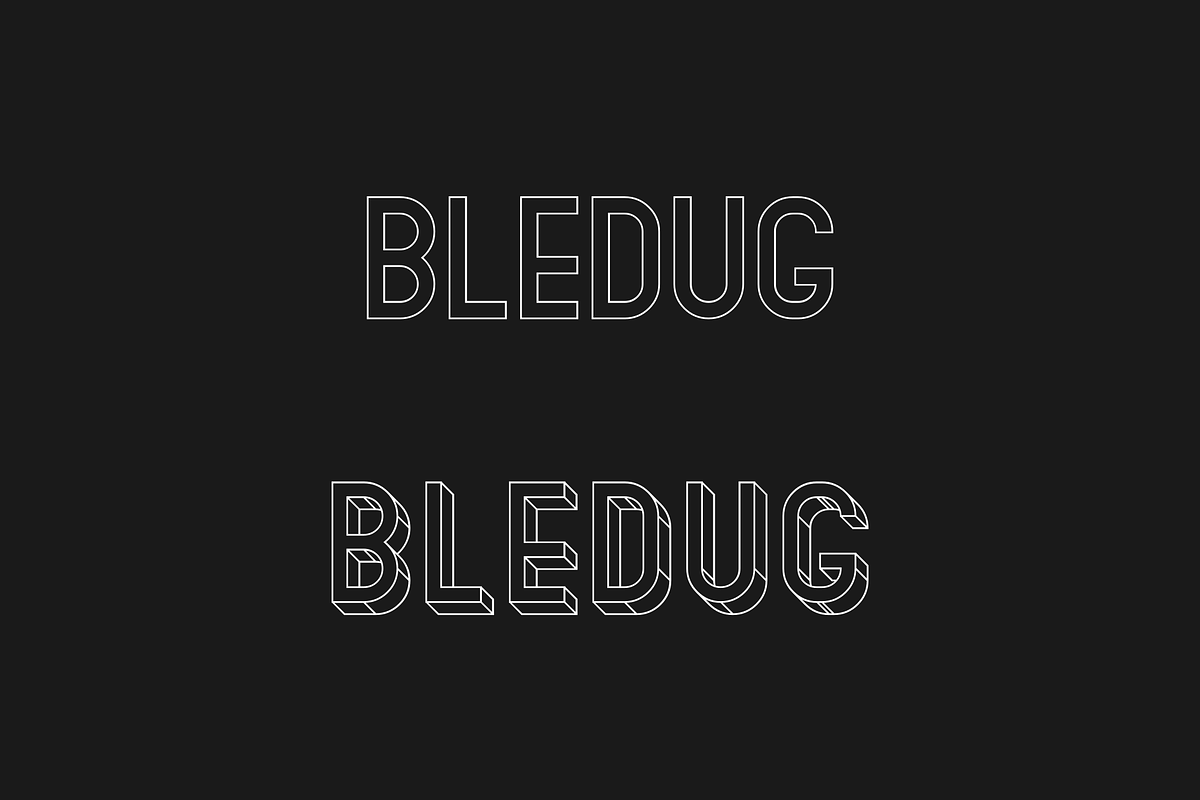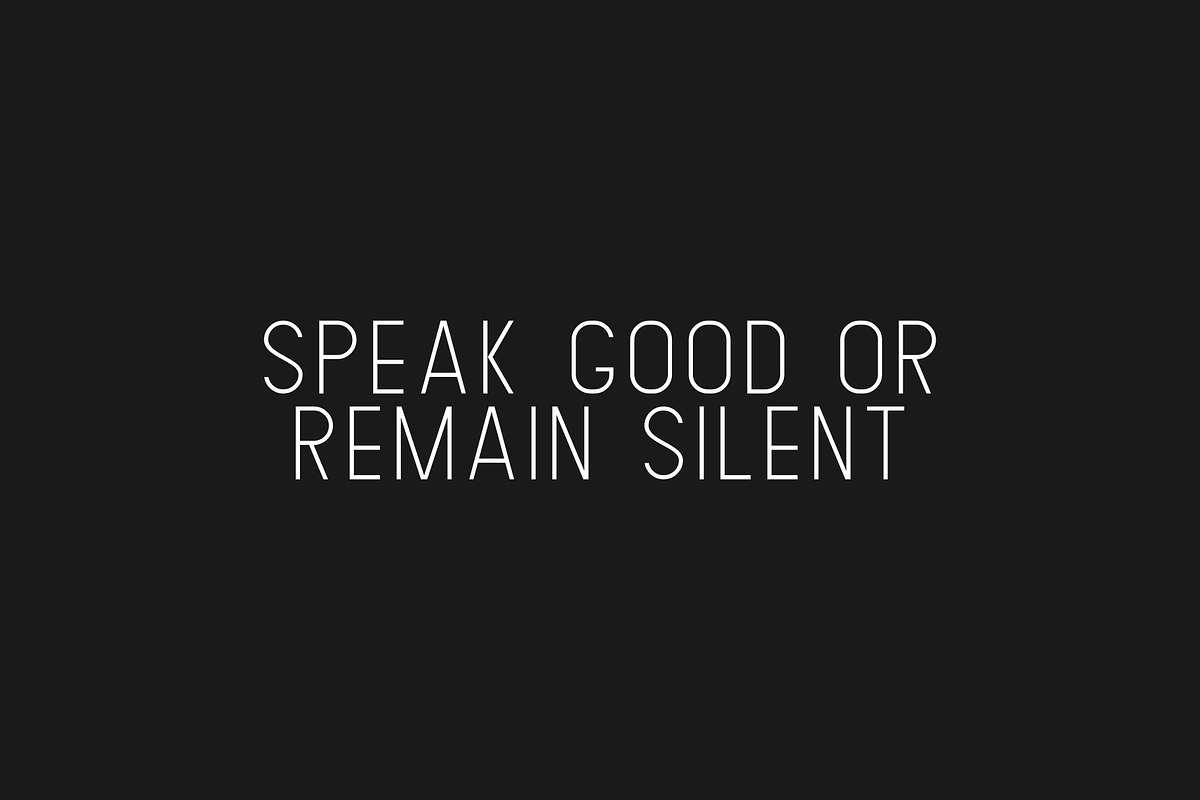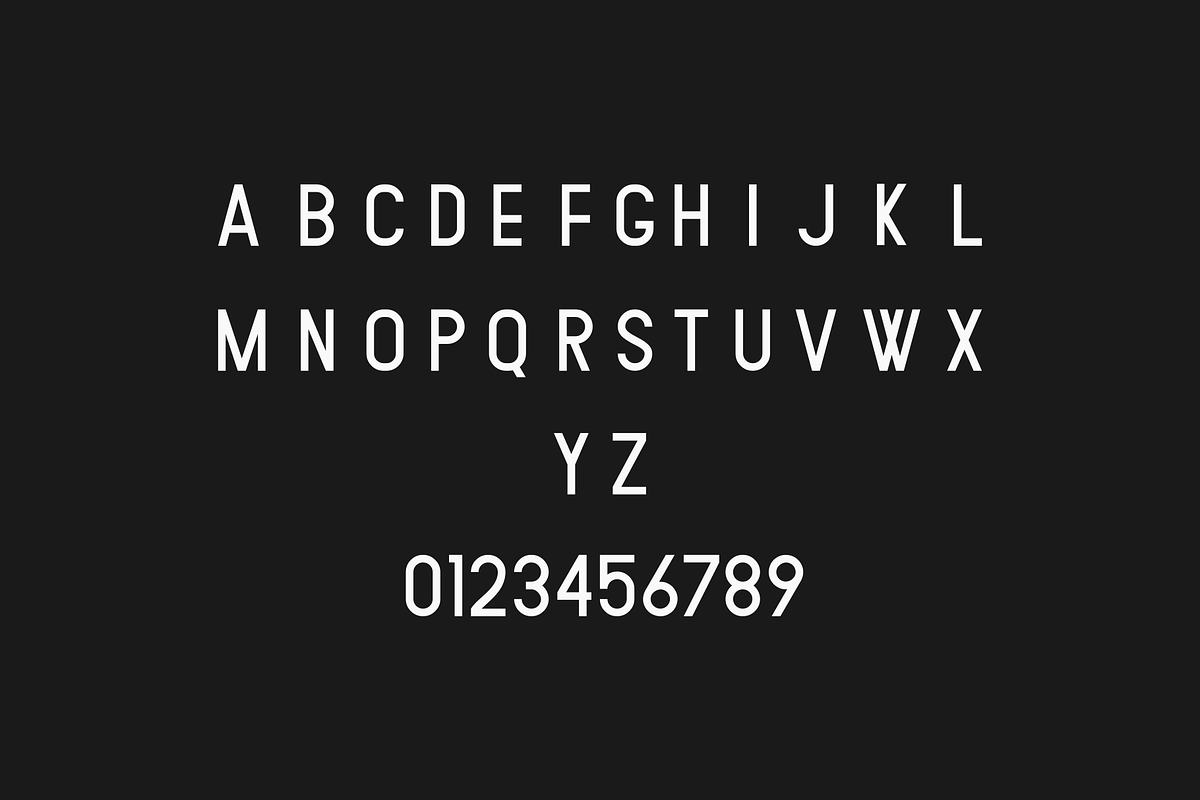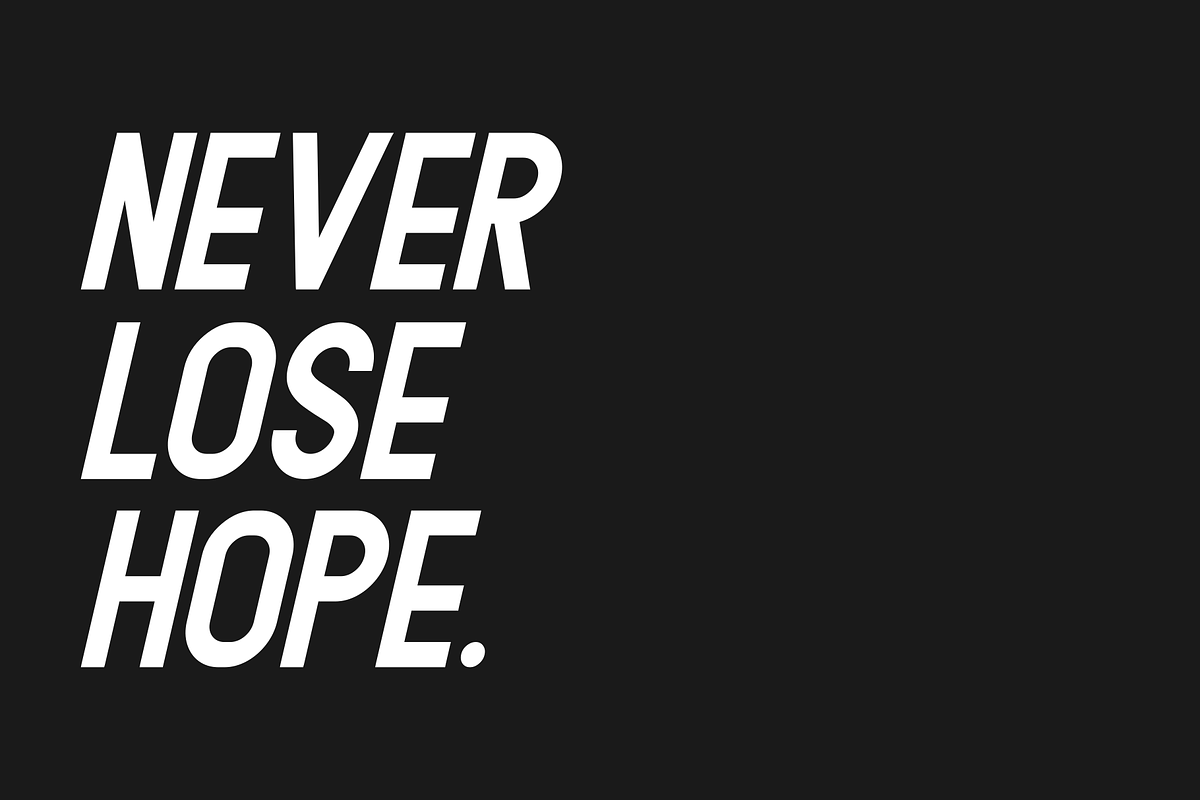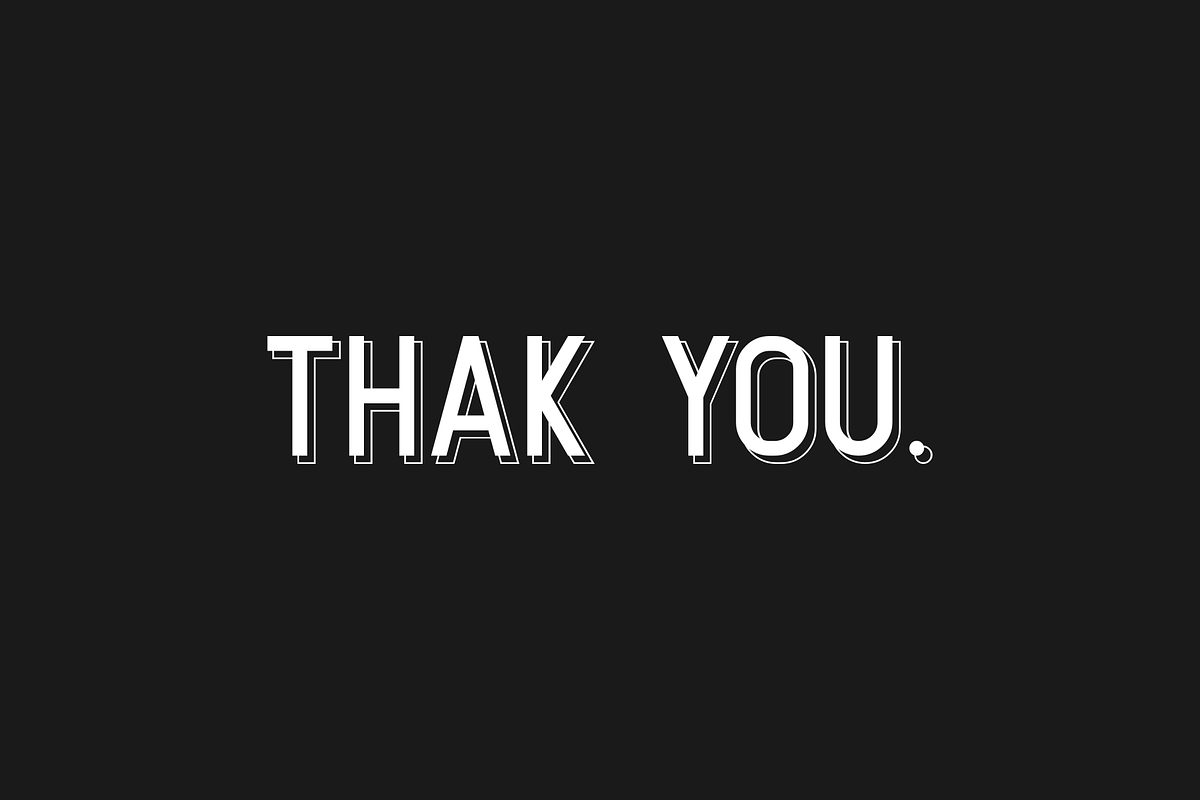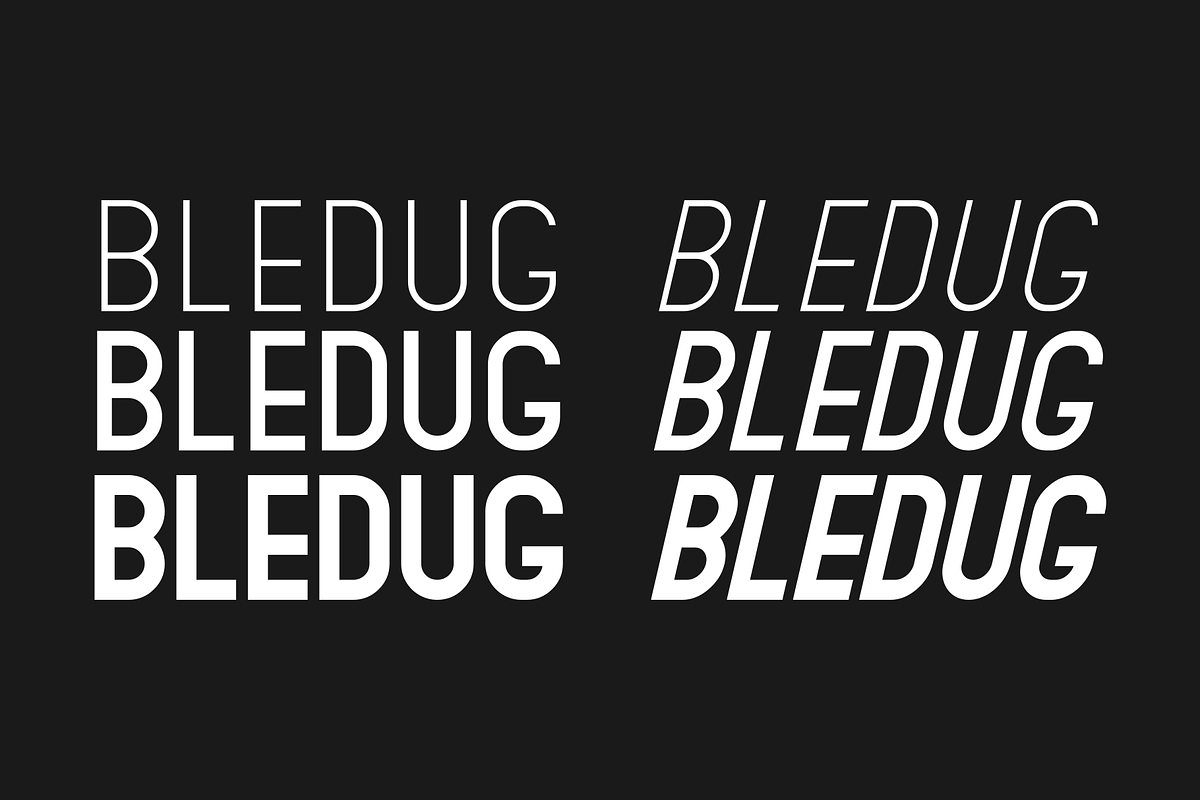
Bledug Font Family
Bledug is all caps sans serif font family. It comes in 8 styles, three weights, three italic, outline, and wireframe. Bledug is perfectly suited to headlines, branding visual identity, poster, logo, magazines and etc.
Bledug Light Light and Light Italic.
Bledug Regular and Italic.
Bledug Bold Bold and Bold Italic.